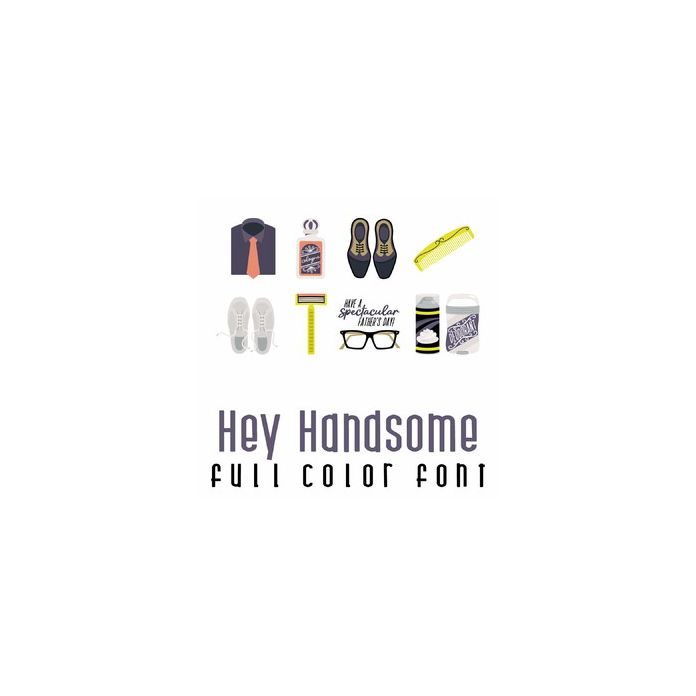
This adorable full-color doodlebat font features 26 handsome Dad items, perfect for Father's Day, crafts, gifts, planner stickers, scrapbook pages and more!